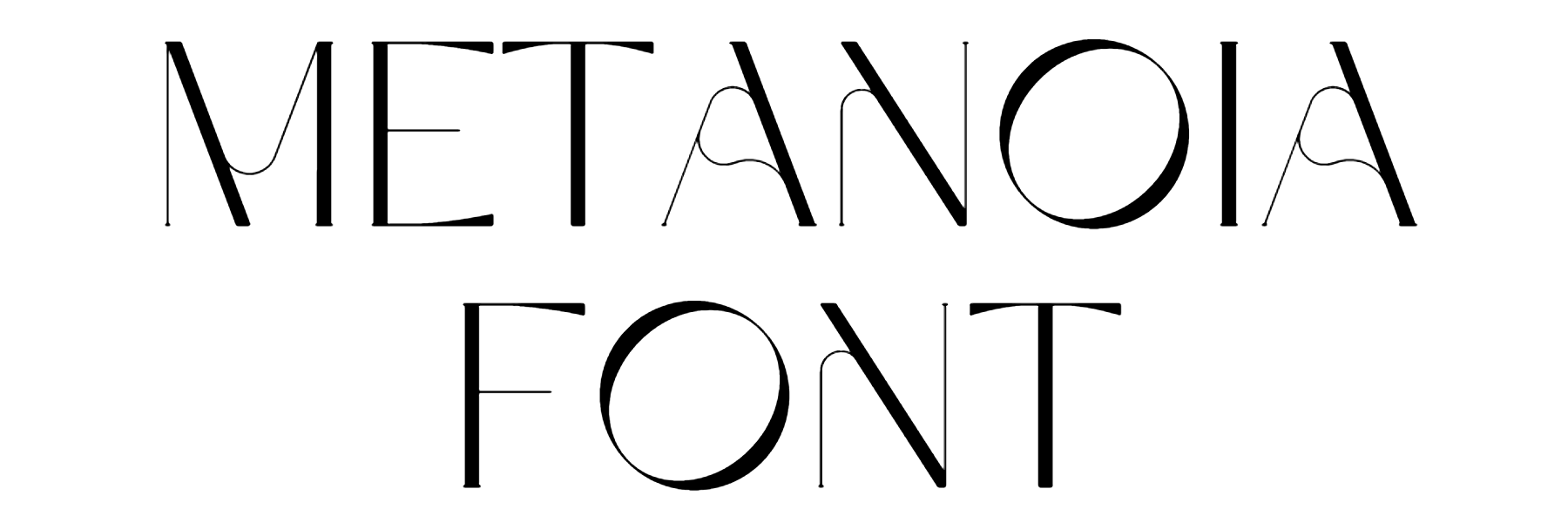
Metanoia
Metanoia is a serif font designed by Vladimir Fedotov and published by VP Creative Shop (2022). Small strokes at the ends of its letters (the serifs) give it a classic, trustworthy look. It's a free download, and you can try it with your own text in the preview above first.
What You Can Type With Metanoia
Metanoia covers the full alphabet in upper and lowercase, plus all ten numbers, so you can set names, dates and prices without switching fonts. Everyday marks like &, !, ? and @ are there too. Thanks to its accented letters, it also works for Spanish, French, German, Portuguese and Italian, not just English.
Where Metanoia Works Best
Metanoia is a natural fit for book covers, magazine headlines and classic branding. The file has no kerning data, so in logos and big titles check pairs like AV, To and Wa and tighten the spacing by hand. Serif fonts shine in headlines and printed text. For long paragraphs on phones, check that it still reads well at small sizes.
Who designed Metanoia font?
Metanoia was designed by Vladimir Fedotov and published by VP Creative Shop. The copyright line inside the font is dated 2022.
Does Metanoia support accented letters?
Yes. Metanoia includes the accented letters needed for Spanish, French, German, Portuguese and Italian, so it works for more than just English.